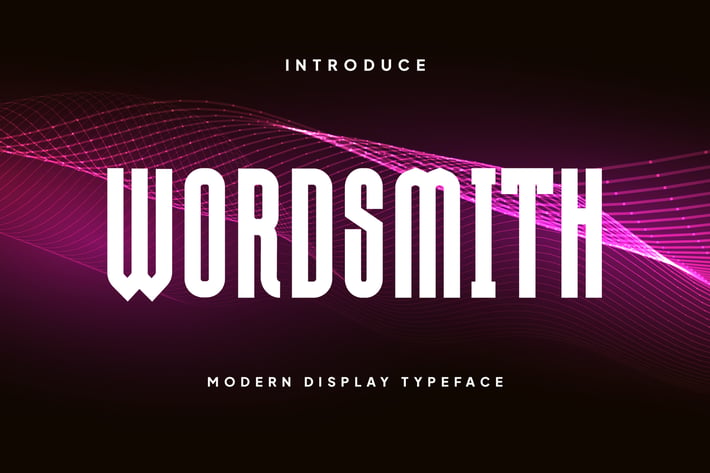
Wordsmith - Modern Display Typeface
Wordsmith - Modern Display Typeface designed to make a bold and impactful statement. With its clean, geometric lines and balanced proportions, Wordsmith is perfect for headlines, posters, and branding.